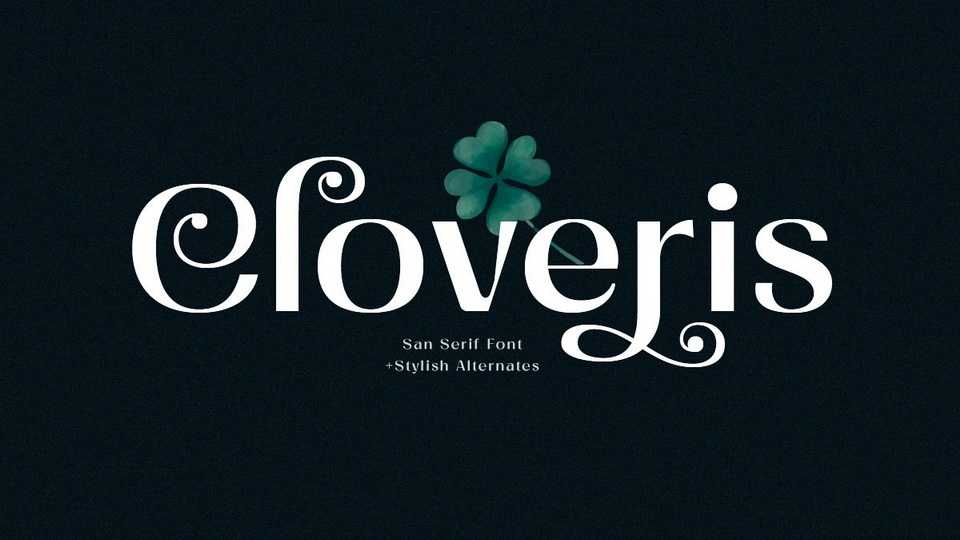
Download Cloveris font, a sophisticated sans serif typeface with unique swirls and swashes. Cloveris is very suitable for headlines and titles, logos and branding.